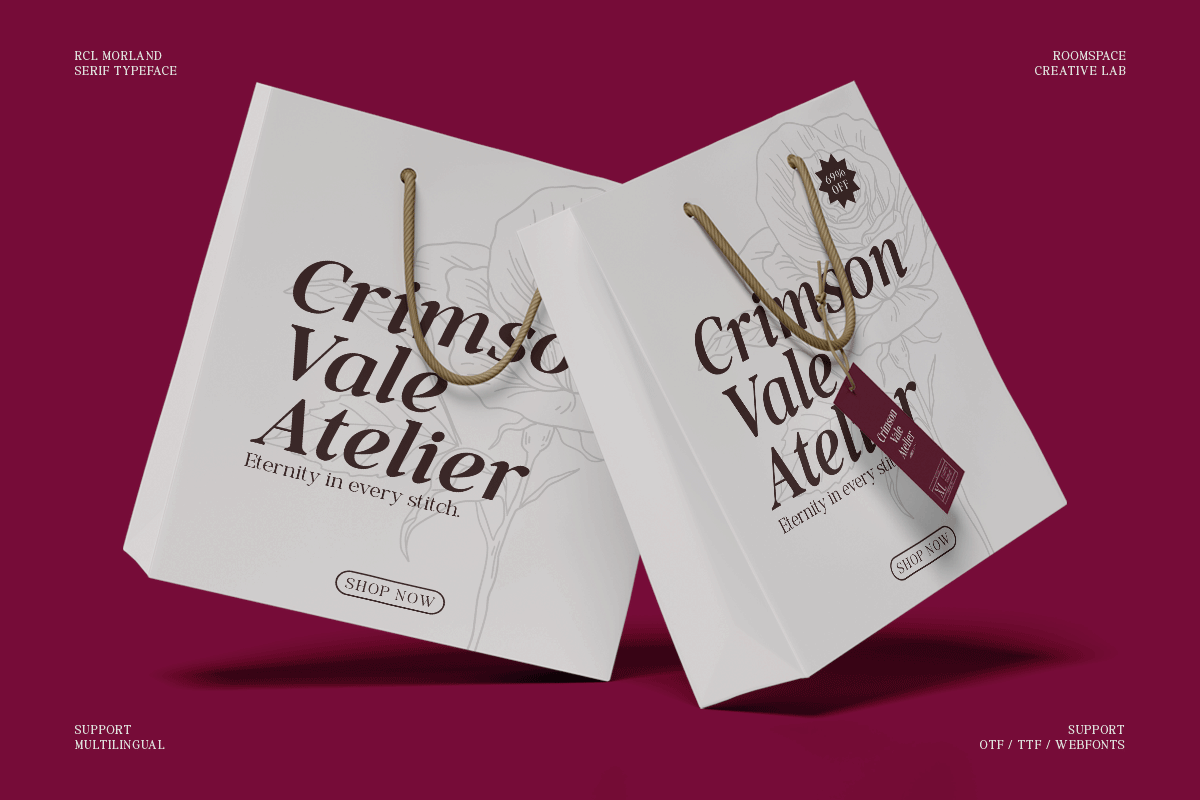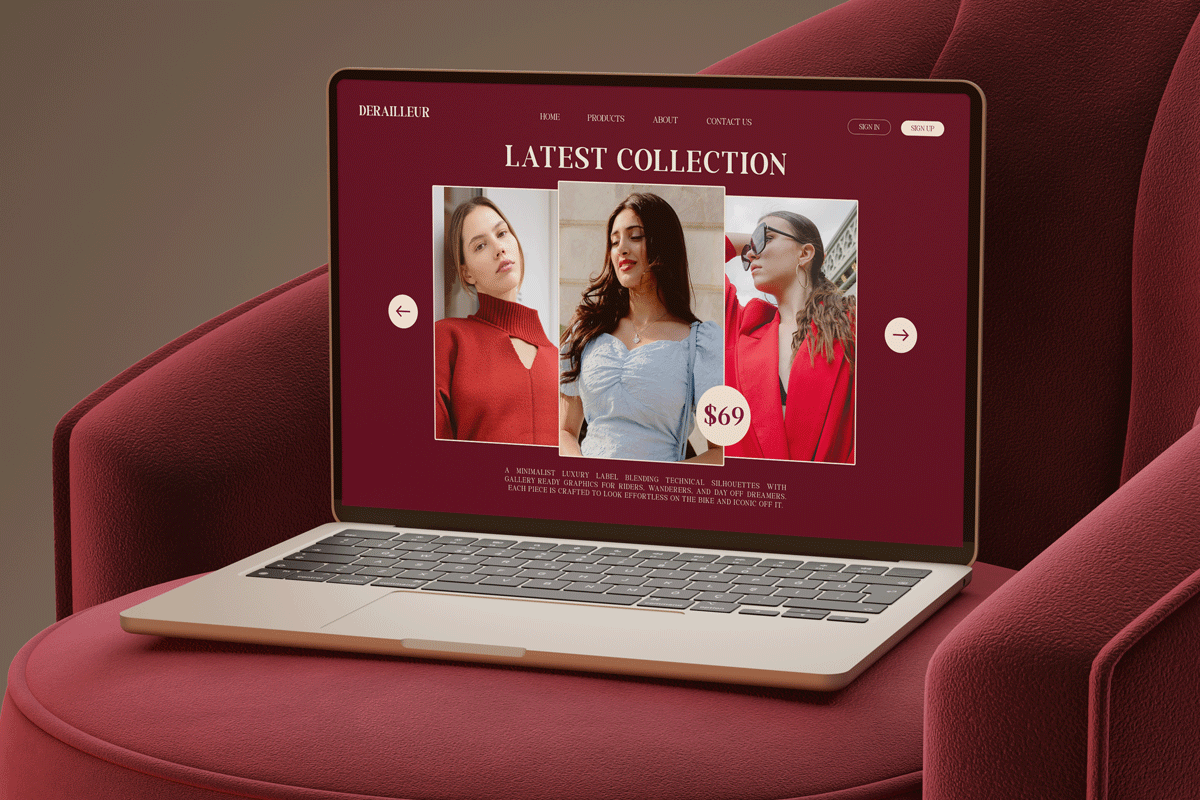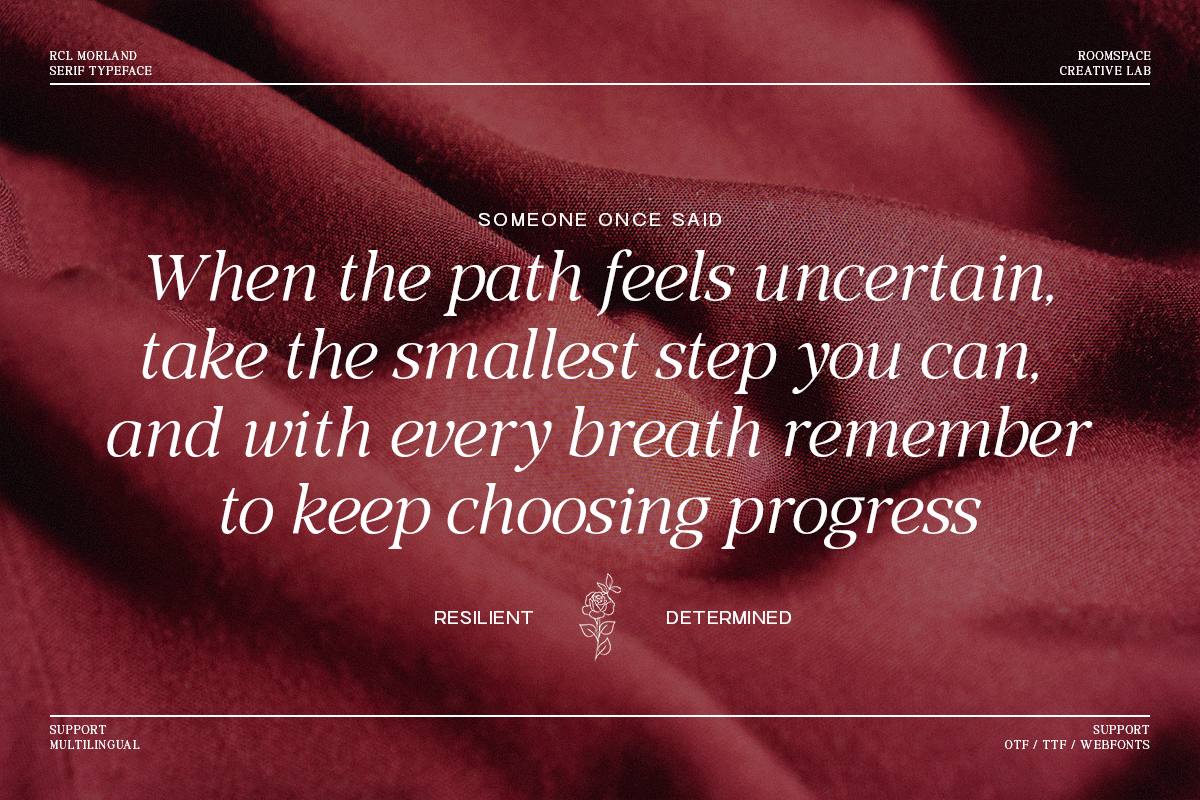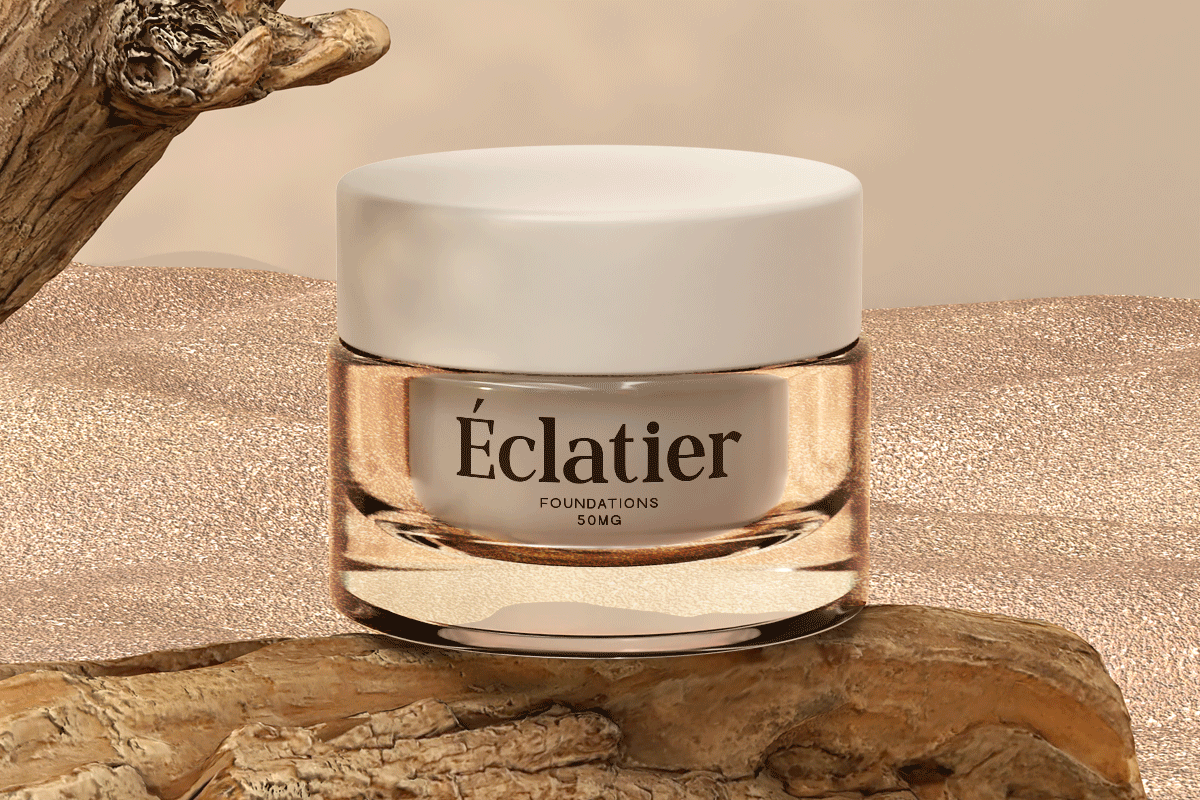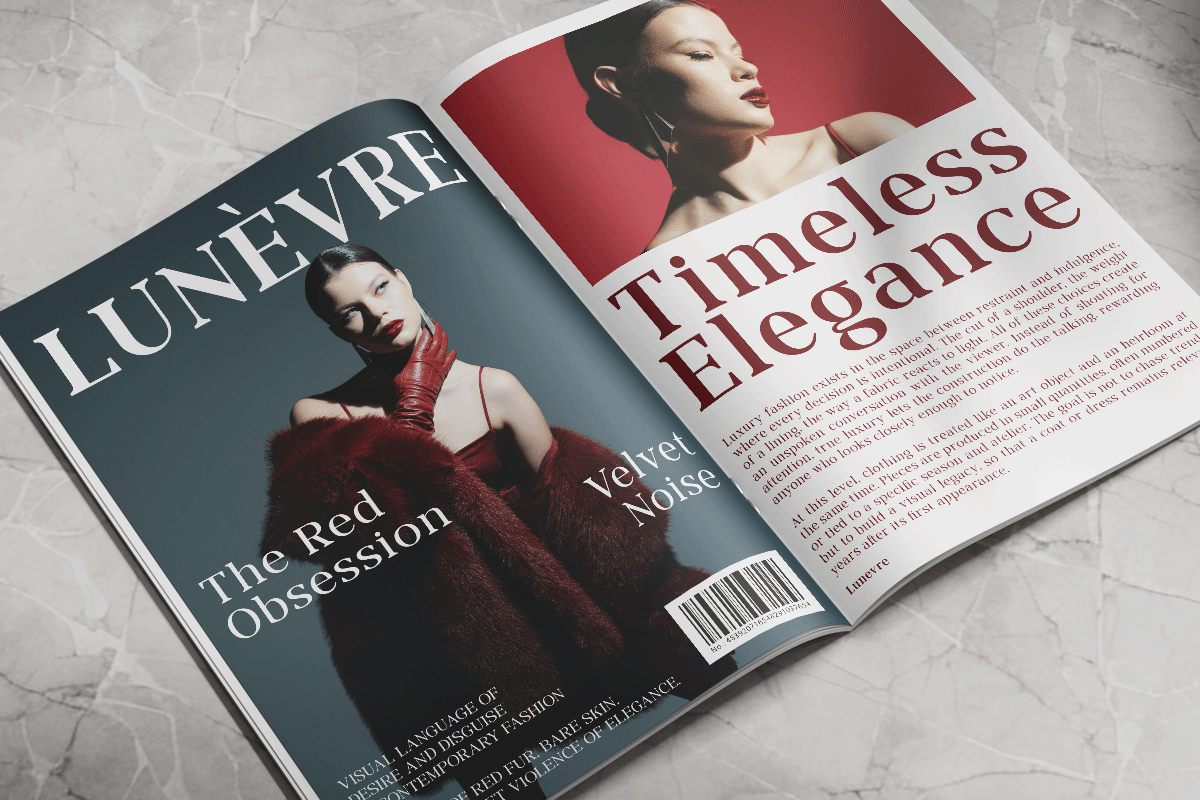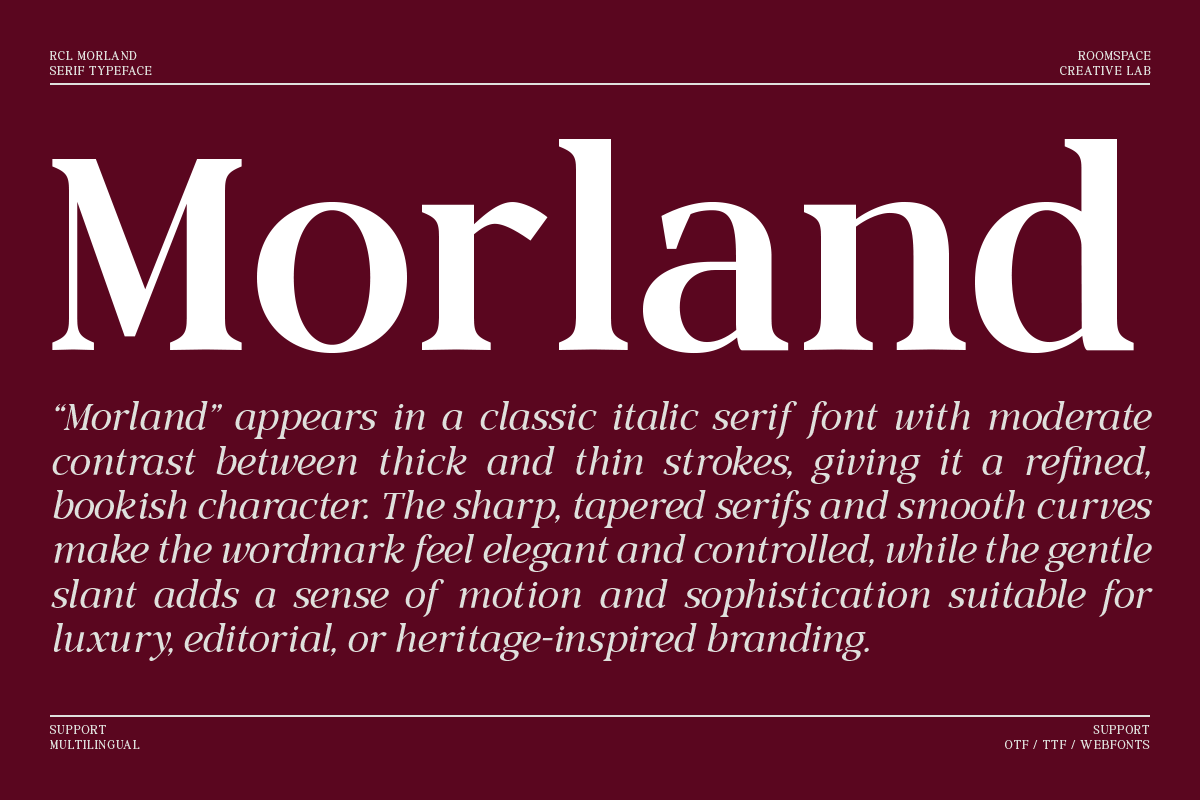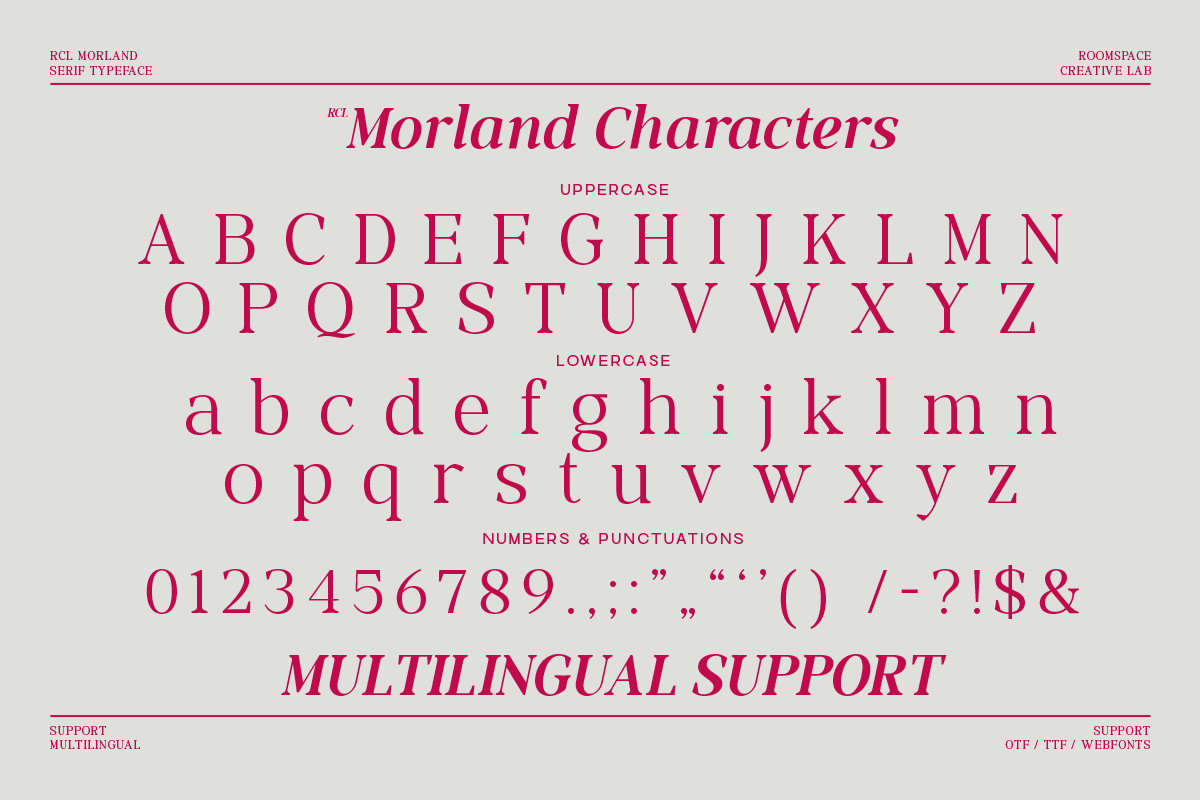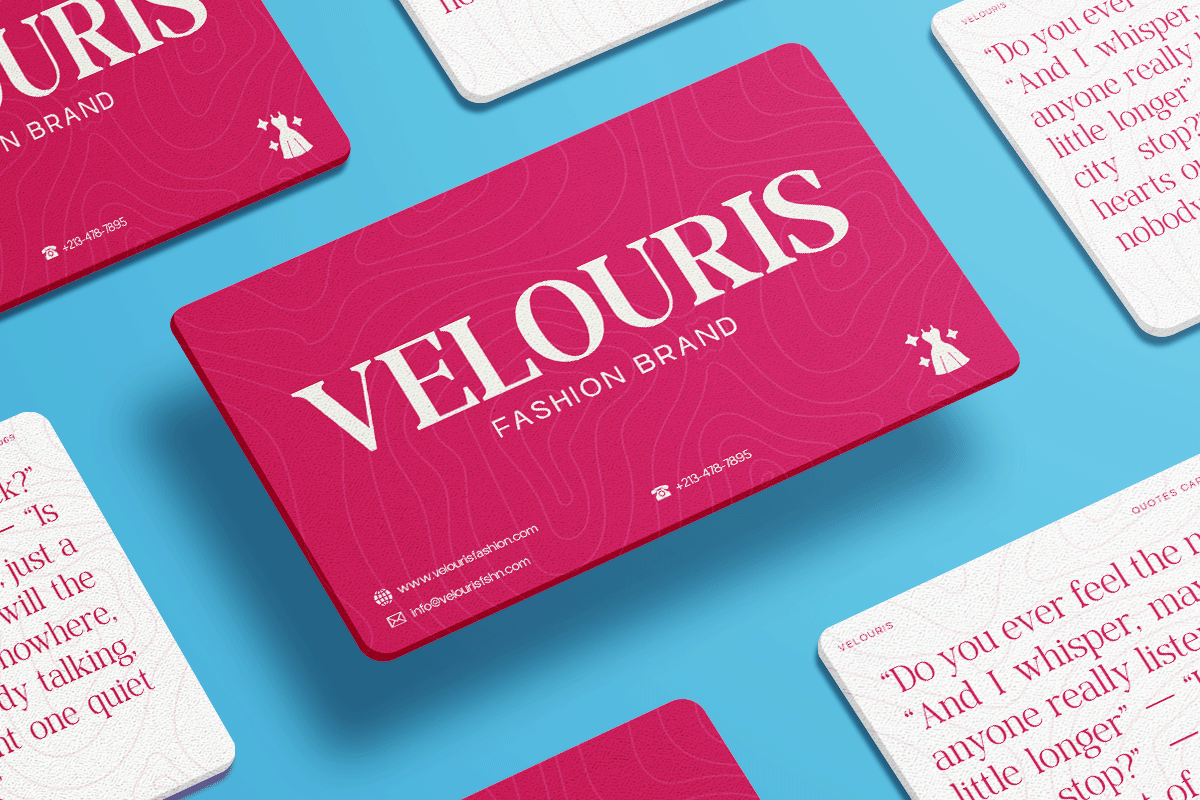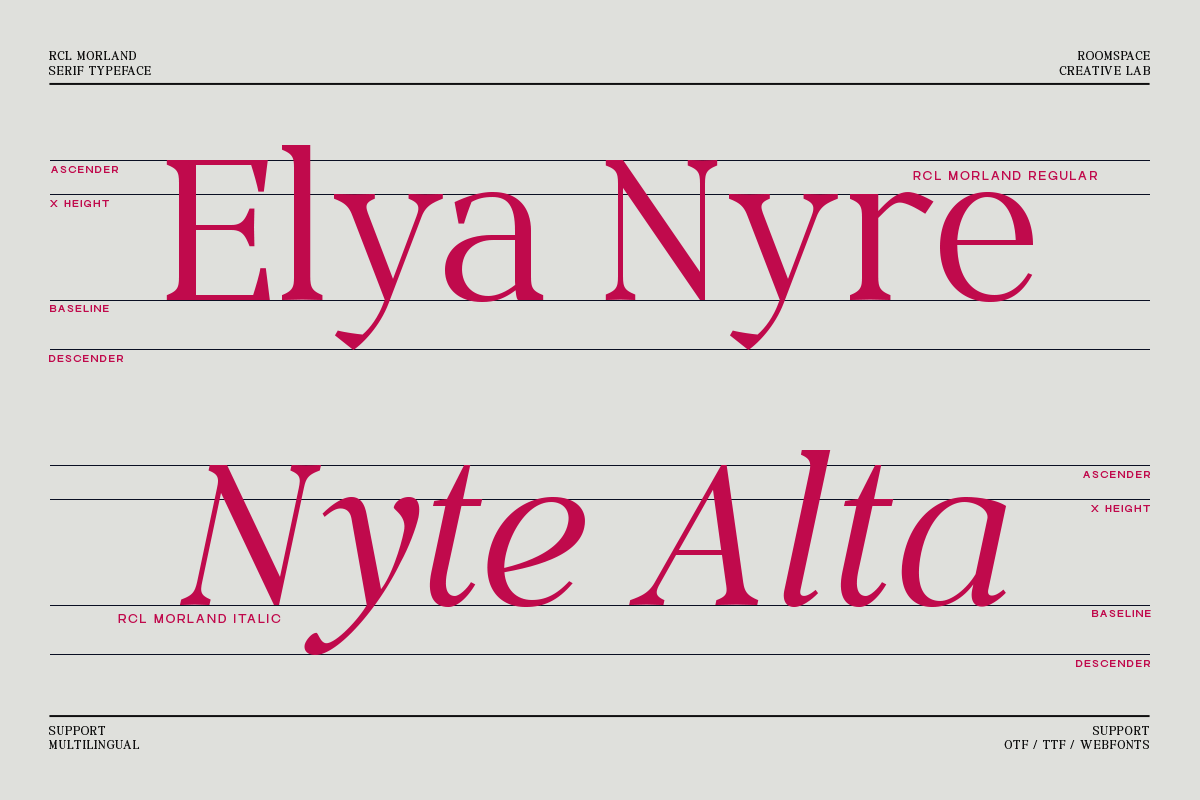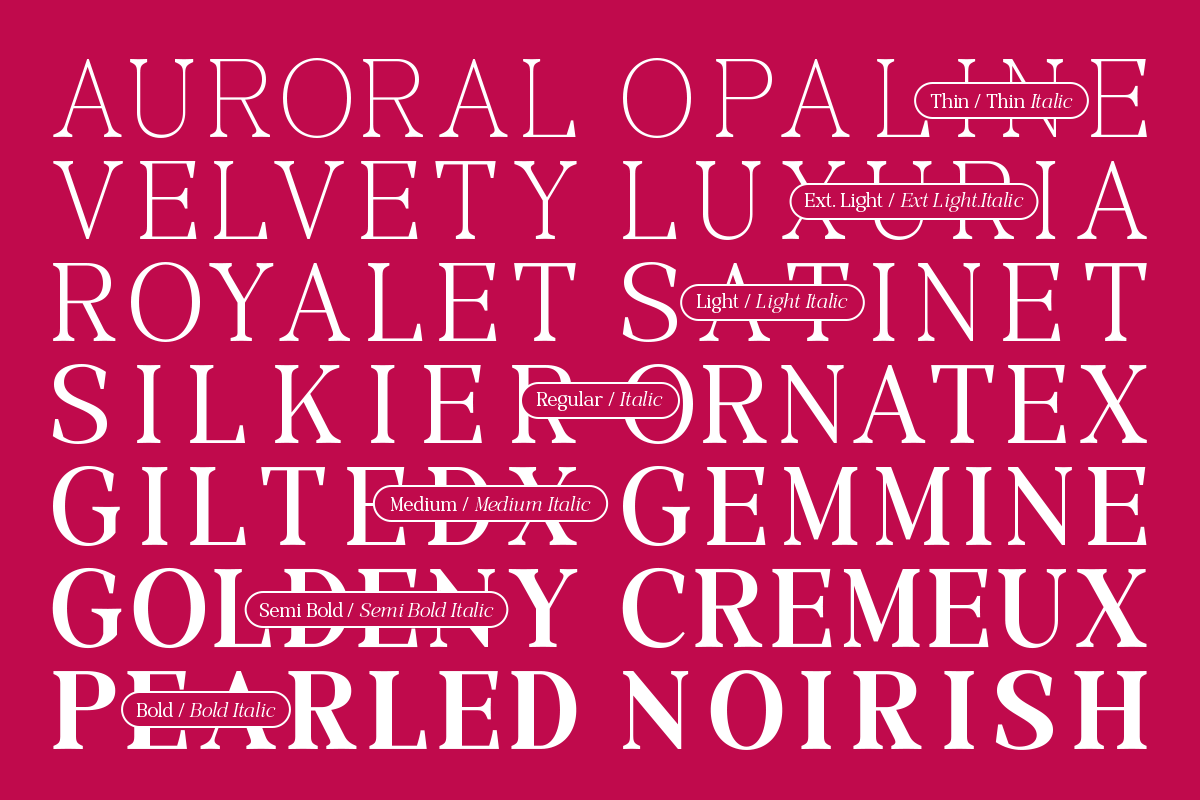
Morland – A Modern Elegant Serif
A timeless serif font made for editorial design, branding, and refined visual storytelling.
Meet Morland a modern serif typeface designed to elevate your designs with elegance and clarity. Combining classic serif character with contemporary balance, Morland brings sophistication to editorial layouts, branding systems, and luxury projects. Its clean structure and versatile weights make Morland an ideal choice for designers seeking a timeless yet modern aesthetic.
- Multiple font weights
- Modern serif construction